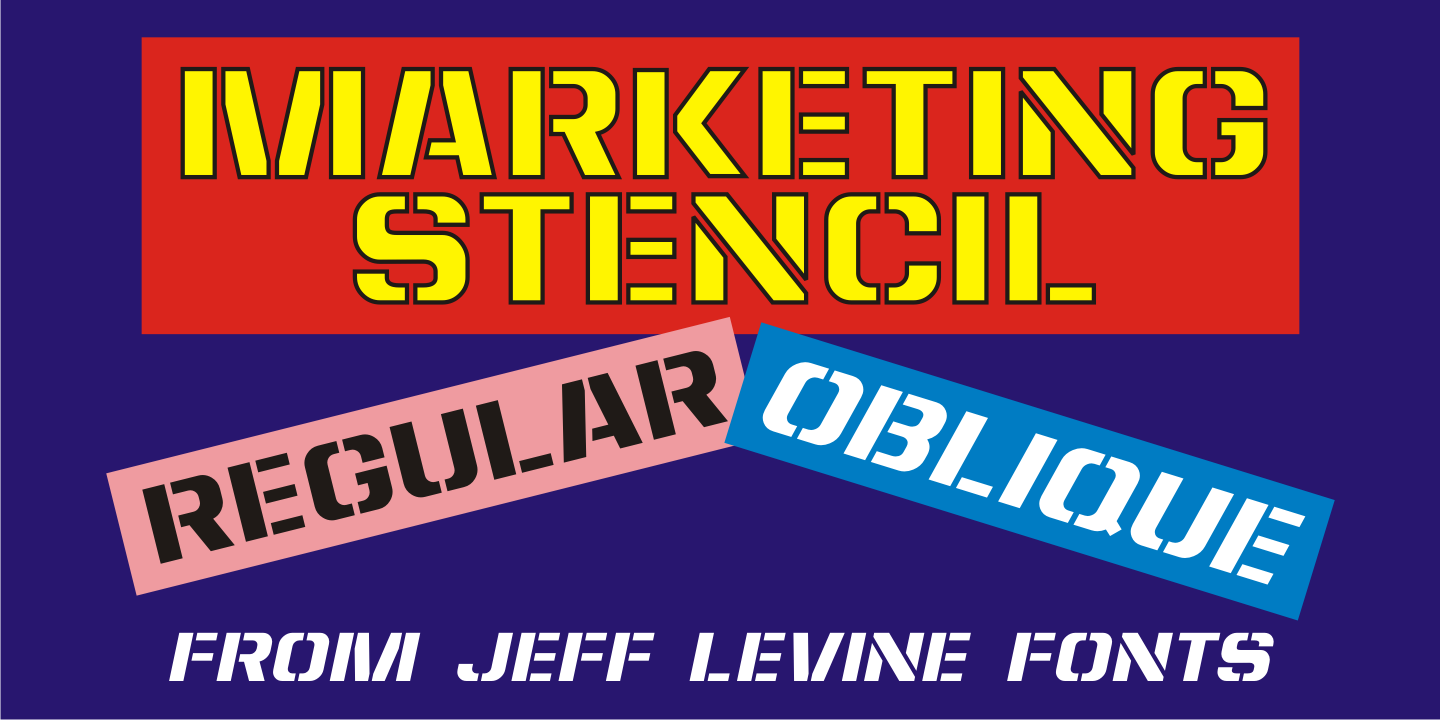
Marketing Stencil Font Free Download – A Bold Industrial Typeface with Urban Edge
Make a powerful statement with Marketing Stencil Font Free Download, a rugged stencil typeface inspired by military markings and factory signage. Perfect for industrial branding, urban designs, and high-impact graphics, this font delivers raw, no-nonsense character with every letter.
Why Marketing Stencil Font Stands Out
1. Industrial-Strength Features
Clean stencil break points
Uniform stroke weight for visibility
Slightly distressed texture variants
✔️ Military-inspired branding
✔️ Factory/workshop signage
✔️ Urban apparel designs
✔️ Construction company logos
✔️ Protest/political graphics
3. Technical Specs
Uppercase A-Z + numerals
Special stencil break variations
Multilingual support (Latin)
DIY garage labels
Urban art projects
Personal workout motivation graphics
Man cave signage
Tactical gear packaging
Craft brewery branding
Automotive aftermarket decals
Gym/fitness center signage
Designer's Workshop Tips
Layer over concrete/metal textures
Use high-contrast color schemes
Add grease pencil or spray paint effects
36pt+ for full stencil impact
Works best in ALL CAPS
Ideal for short, commanding words